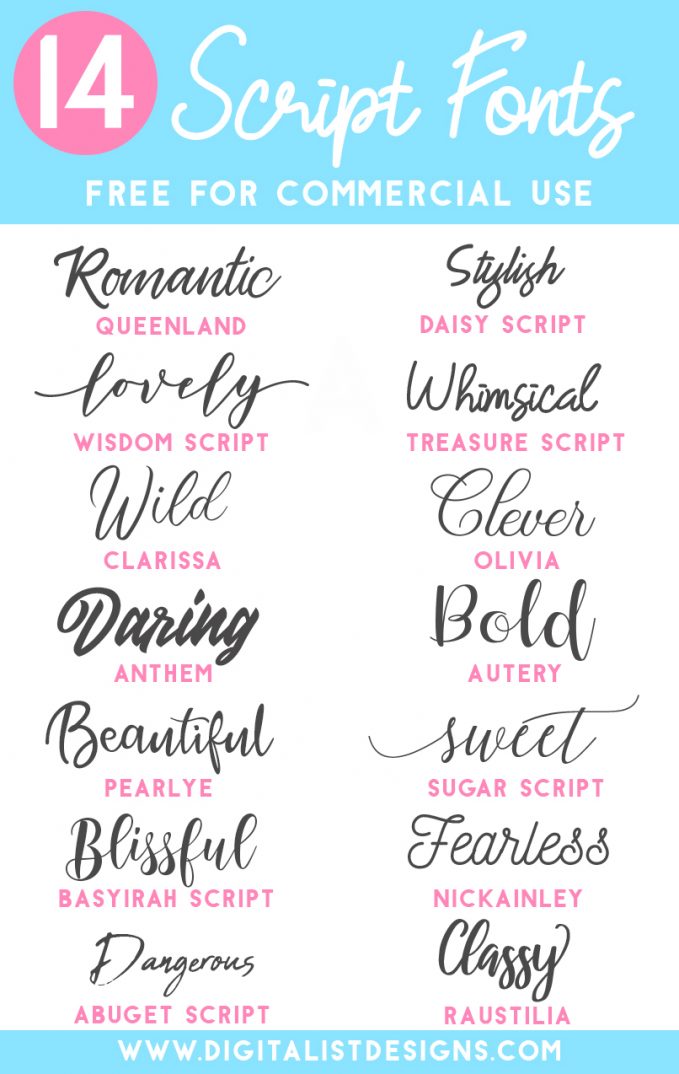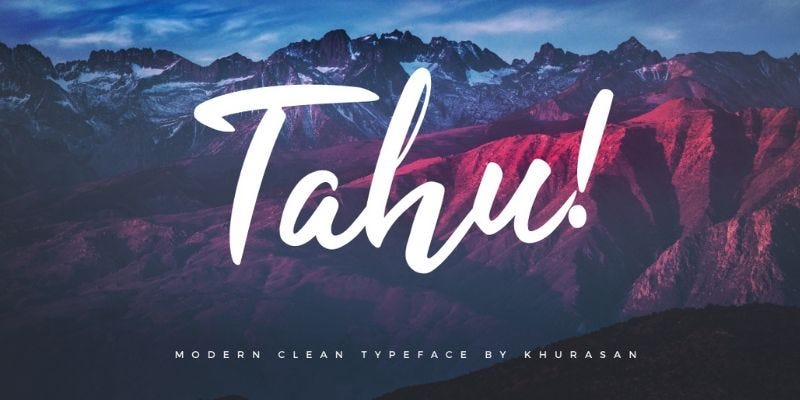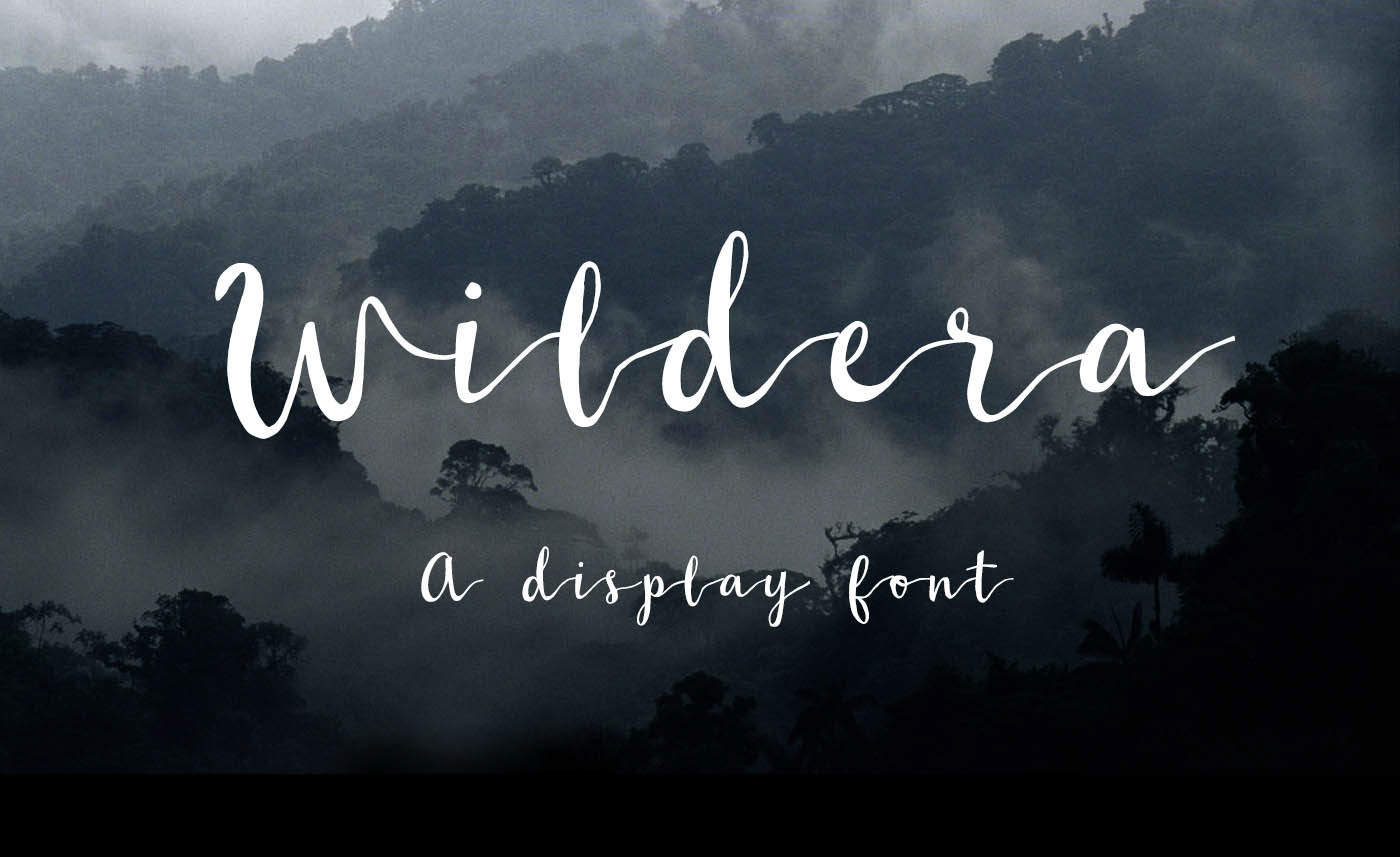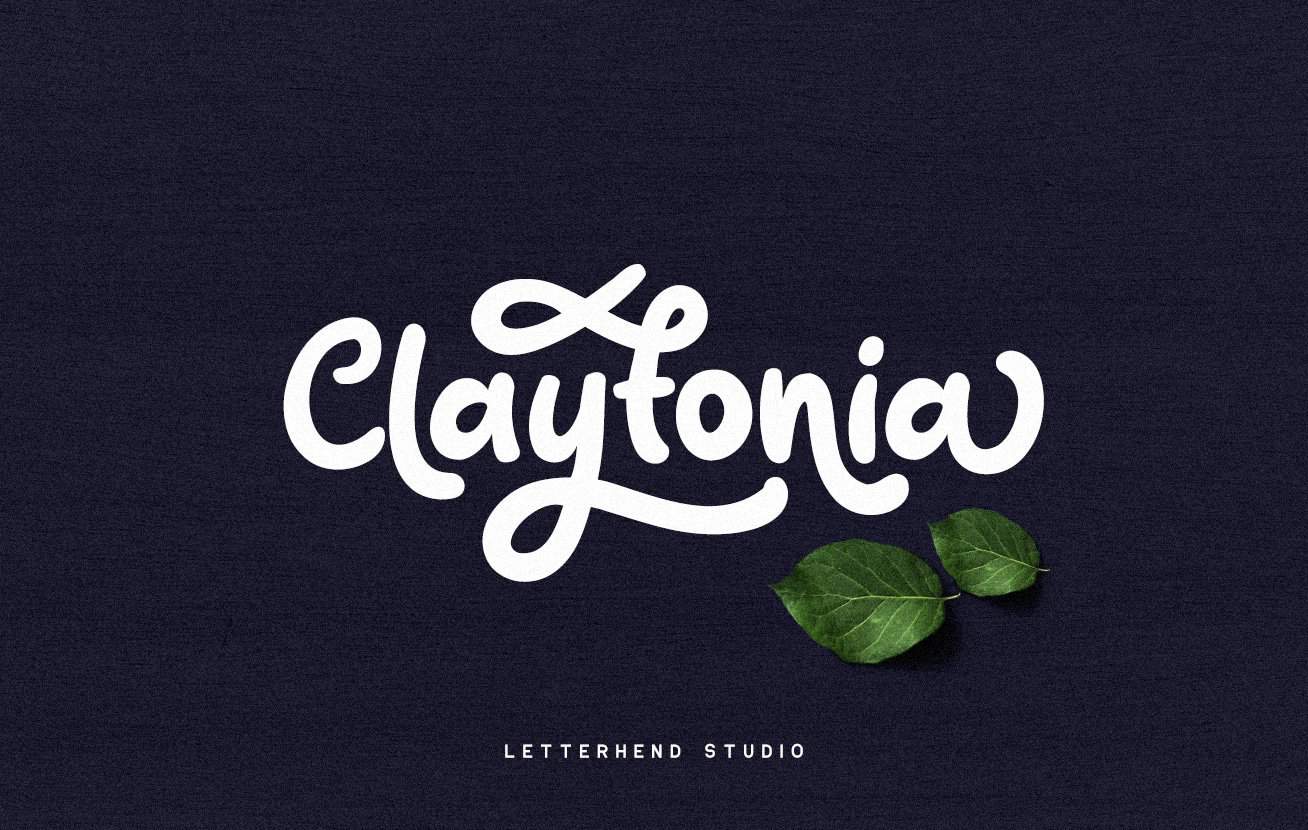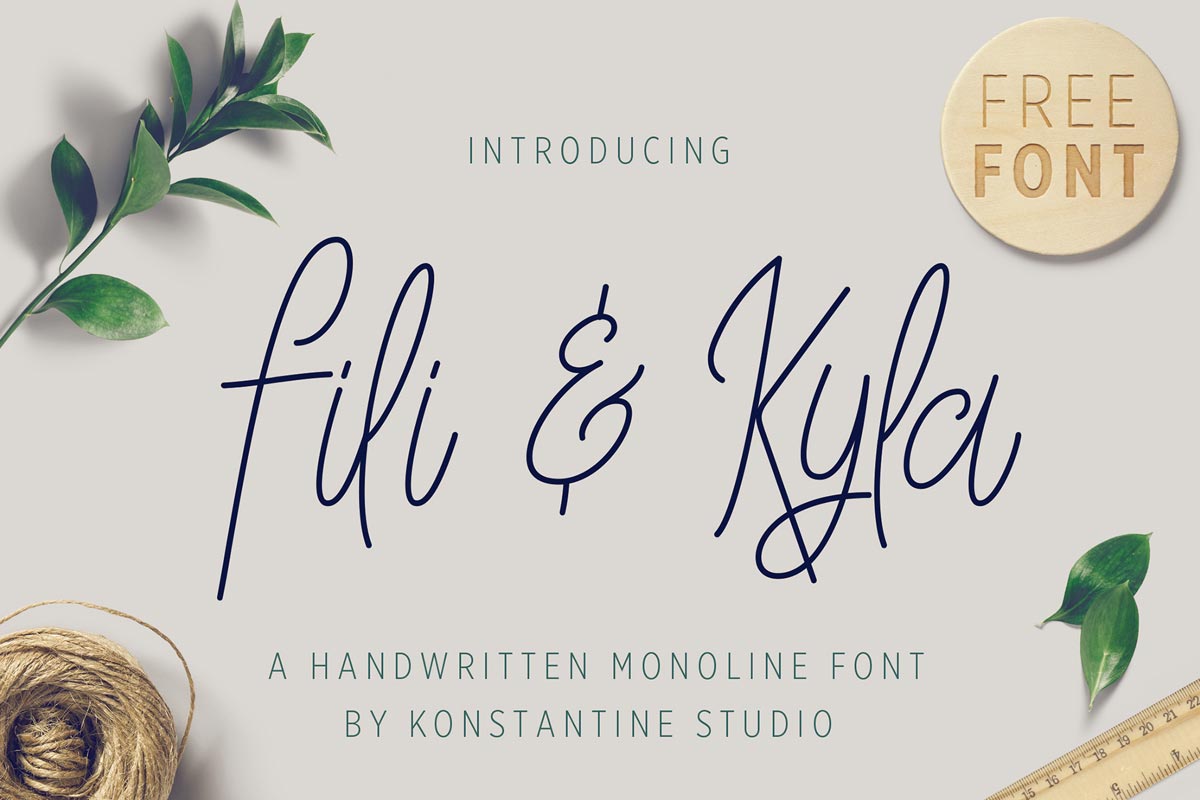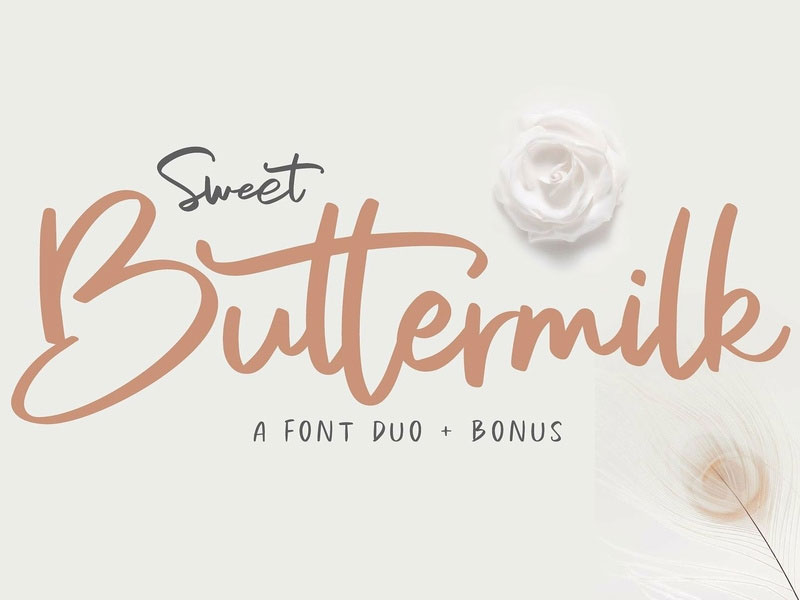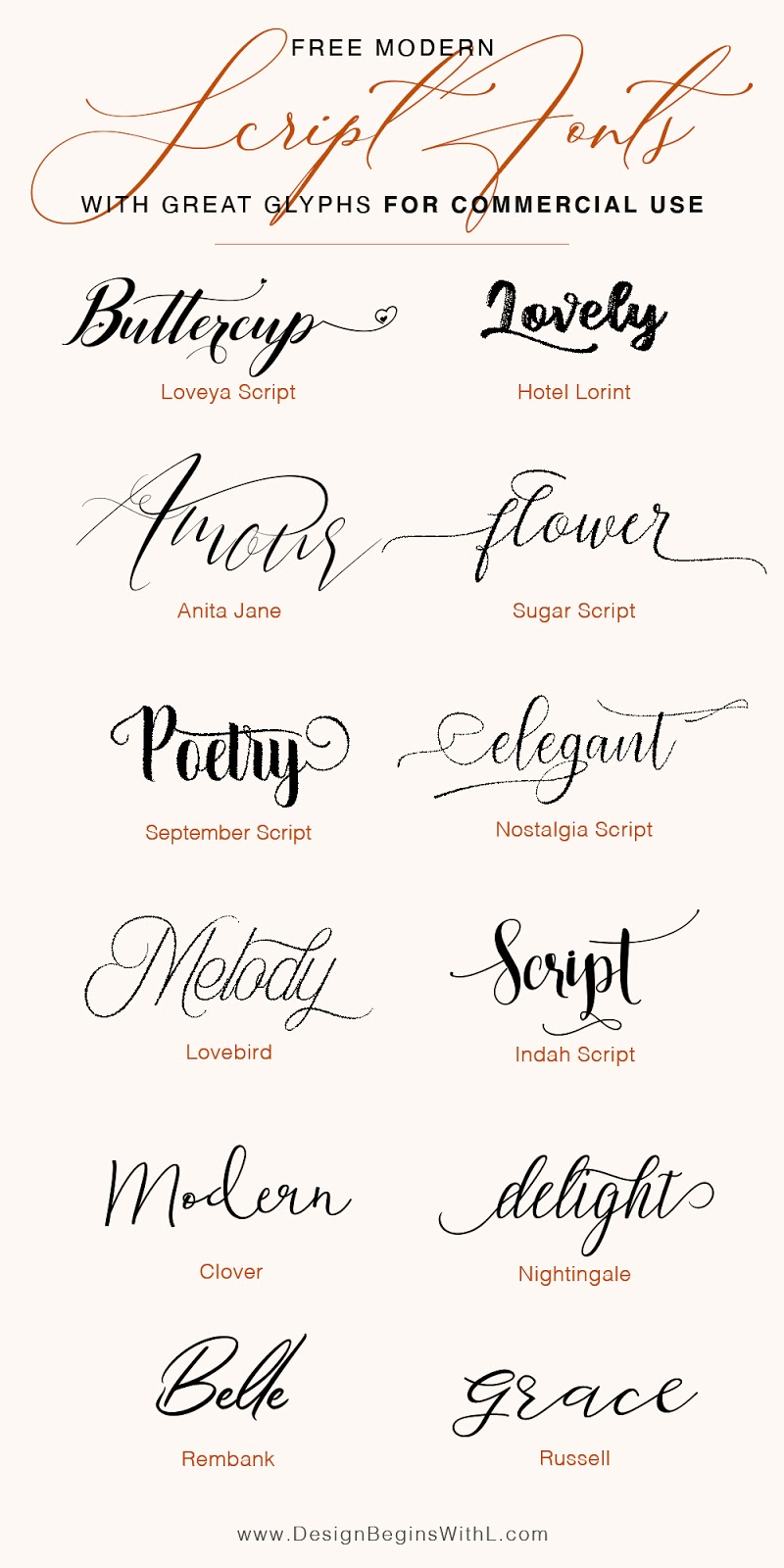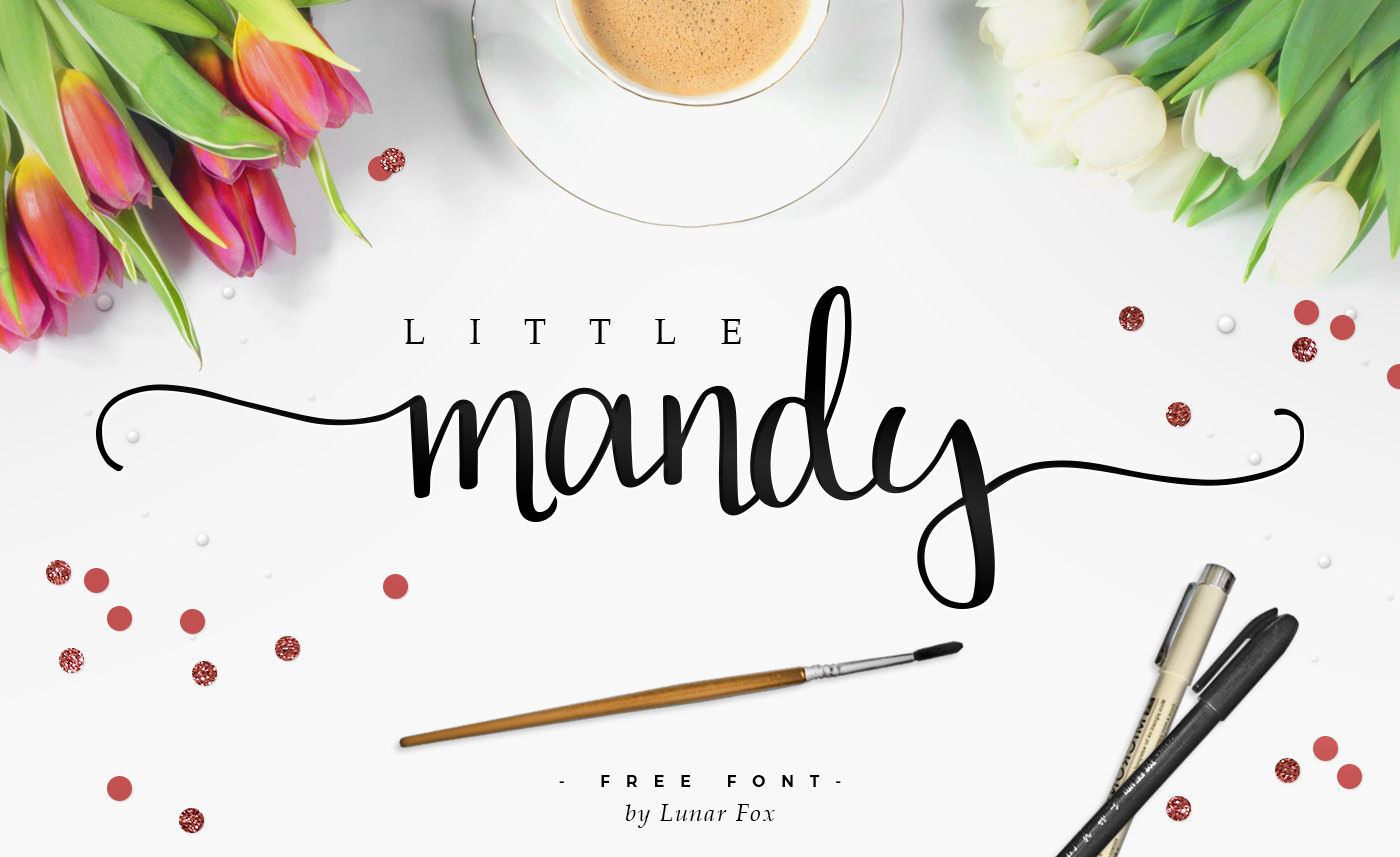
Free script fonts for commercial use. It might be smart to bookmark this page just so you dont forget the names of the fonts youve downloaded. If youre an Etsy printable seller you can use these fonts to create amazing printables. Lily Script One.
Anita Jane Includes glyphs for lowercase letters some ligatures and swashes 4. Daisy Script is free for commercial use. They are organized into highly regular formal types similar to cursive writing and looser more casual scripts.
The following typefaces and fonts are ideal to make an attractive design and fit for any artwork. You can use this font for different design projects like signature logos business cards product labels. Olivia Sweet Love and other modern handwritten fonts with tails.
12 Free Modern Script Fonts for Commercial Use. Script typefaces are based upon the varied and often fluid stroke created by handwriting pretty much like the cursive fonts just typically more elegant. Its hard to remember font names sometimes.